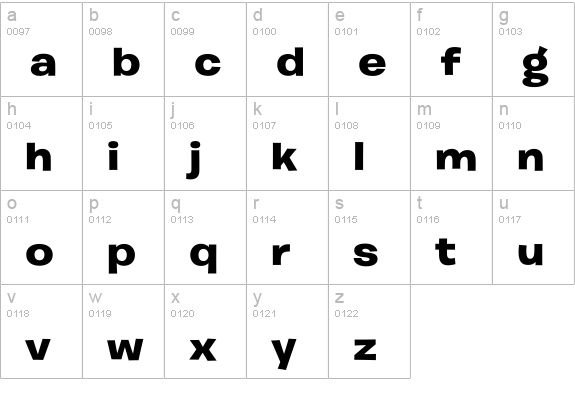
Burbank Big Wide Bold is a strong, high-contrast, extended-width variant in the Burbank typeface family \xE2\x80\x94 well suited to headlines, attention-grabbing titles, and strong calls-to-action.
The Burbank Big Wide Bold font is a striking and impactful display typeface that exudes confidence and modernity. Its bold and wide letterforms command attention and make a strong statement in any design project. Whether used for headlines, titles, or branding, this font is sure to leave a lasting impression. The best part? Burbank Big Wide Bold is available for free download at FontsMarket.com, making it easily accessible for designers and creatives looking to add a touch of boldness to their projects without breaking the bank. With its clean lines and distinctive style, this font is a versatile choice for a wide range of design applications. Download Burbank Big Wide Bold today and make your designs stand out from the crowd!